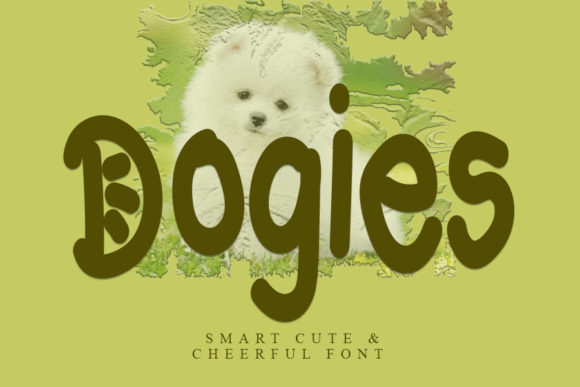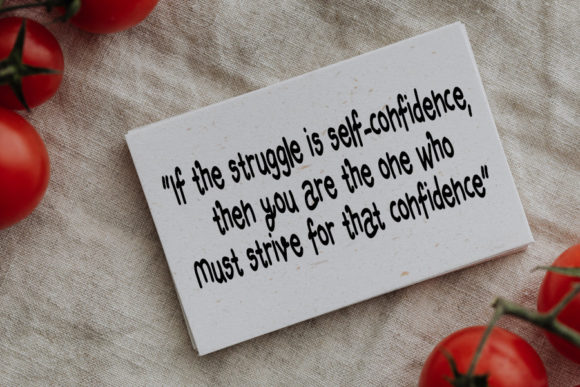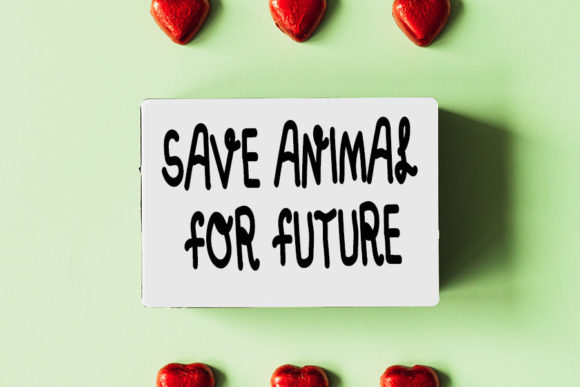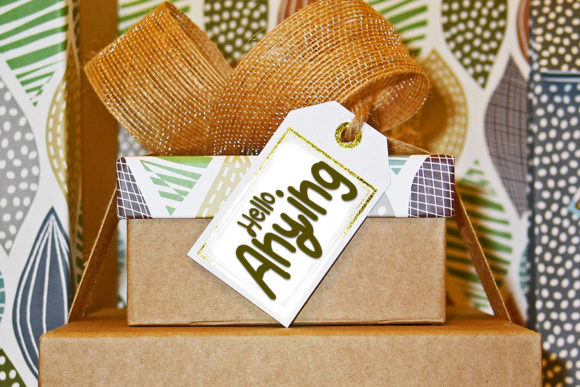
Dogies Font
About Dogies Font
Dogies is a quirky and incredibly sweet paint brushed handwritten font. This font is perfect for pet themed designs, especially when combined with bright colors.